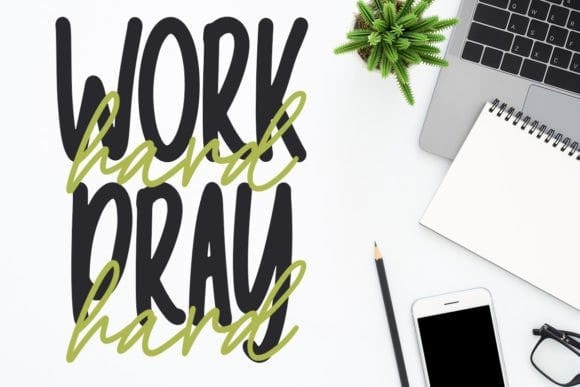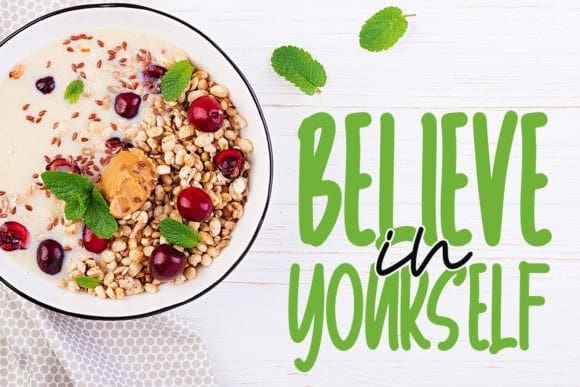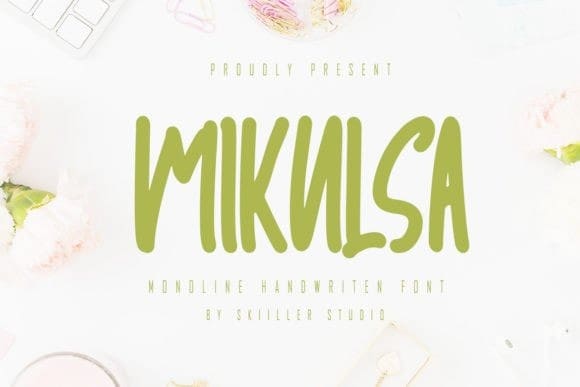
Mikulsa Font
Mikulsa Font is a modern paint-brushed handwritten font, crafted to give your headlines and logotype projects a stylish touch. This font reads as strong, confident, and dynamic and can add tons of urban character to your designs.